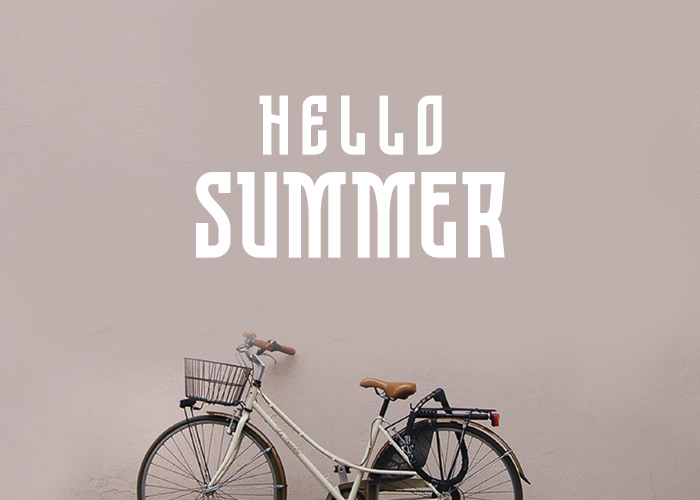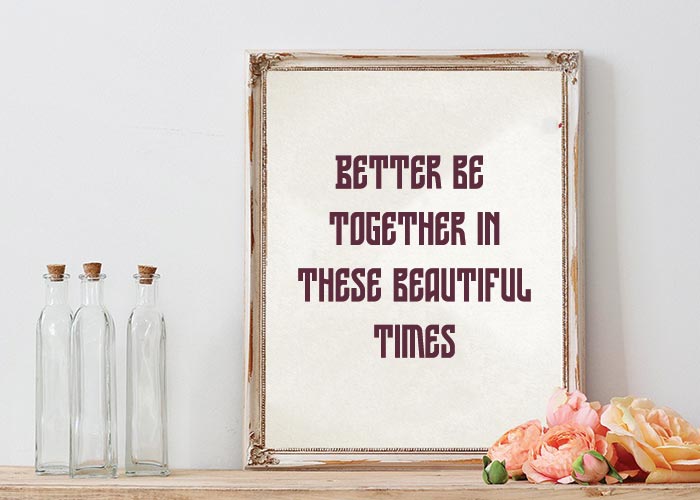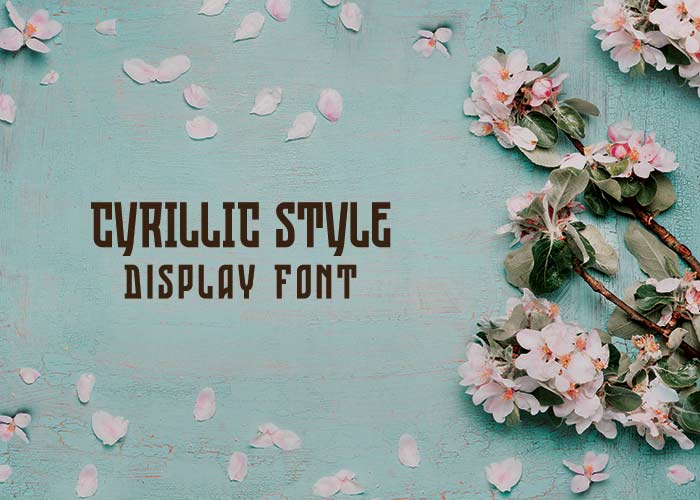
This free font for commercial use is dedicated to the 800th anniversary of the city of Nizhny Novgorod, one of the oldest Russian cities.
It’s 100% recognizable as a native font for Cyrillic users and has a strong ethnic taste for Latin users. The letterforms are straight and condensed and come in 2 styles: uppercase and small caps alternatives.
This font can be used for titles, poster design, web design, branding and packaging works, illustrations, badges, and other typography works.